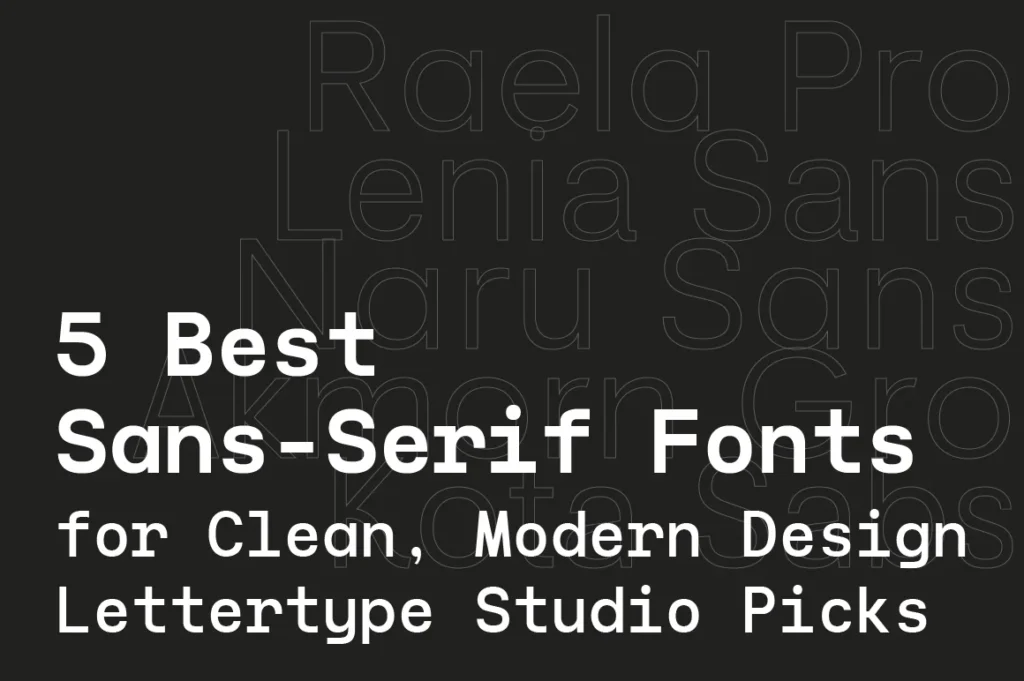
5 Best Sans-Serif Fonts for Clean, Modern Design – Lettertype Studio Picks
In the age of digital branding, minimal interfaces, and fast-moving content, sans-serif fonts have become the backbone of modern visual communication.
They are clean.
They are readable.
They scale beautifully across screens.
But not all sans-serifs are created equal.
Here are five standout sans-serif fonts from Lettertype Studio that designers love for branding, UI, posters, and digital products.
1. Raela Pro — The Modern Workhorse
Raela Pro is built for one thing:
clarity with character.
It is a professional grotesque sans-serif designed for:
• Brand identities
• Websites
• Editorial layouts
• App interfaces
Raela Pro feels neutral, but never boring.
It keeps your design sharp without stealing attention from the content.
logos, startups, portfolios, SaaS, and corporate branding.
2. Lenia Sans — Soft, Friendly, and Digital-Ready
Lenia Sans brings warmth into the modern sans-serif world.
With its slightly rounded structure and balanced proportions, it feels:
• approachable
• contemporary
• highly readable
This makes Lenia Sans ideal for:
social media, lifestyle brands, landing pages, and creative studios.
It’s modern typography that doesn’t feel cold.
3. Naru Sans — Minimalist with Personality
Naru Sans is for designers who want clean design with subtle attitude.
It’s geometric, but not robotic.
It’s minimal, but not empty.
Use Naru Sans when you need:
• editorial layouts
• modern branding
• fashion or creative direction
It gives your work a quiet confidence.
4. Akmorn Grotesque — Strong, Bold, and Professional
Akmorn Grotesque is built to make statements.
It is heavier, more confident, and more impactful than a typical neutral sans-serif.
• headlines
• posters
• brand identities that need strength
If your design needs to look solid and serious, Akmorn delivers.
5. Kota Sans — Clean Typography for the Real World
Kota Sans is designed for usability.
It works beautifully in:
• long-form text
• UI design
• web layouts
• presentations
It doesn’t try to be loud — it tries to be useful.
And in modern design, that is powerful.
Why Sans-Serif Fonts Dominate Modern Design
Sans-serif fonts perform better on screens, scale more smoothly, and fit perfectly into minimal design systems.
That’s why today’s biggest brands, startups, and platforms rely on clean sans-serifs to communicate trust, clarity, and modernity.
Lettertype Studio’s sans-serif collection is crafted for:
digital brands, creatives, and designers who want typography that works everywhere.